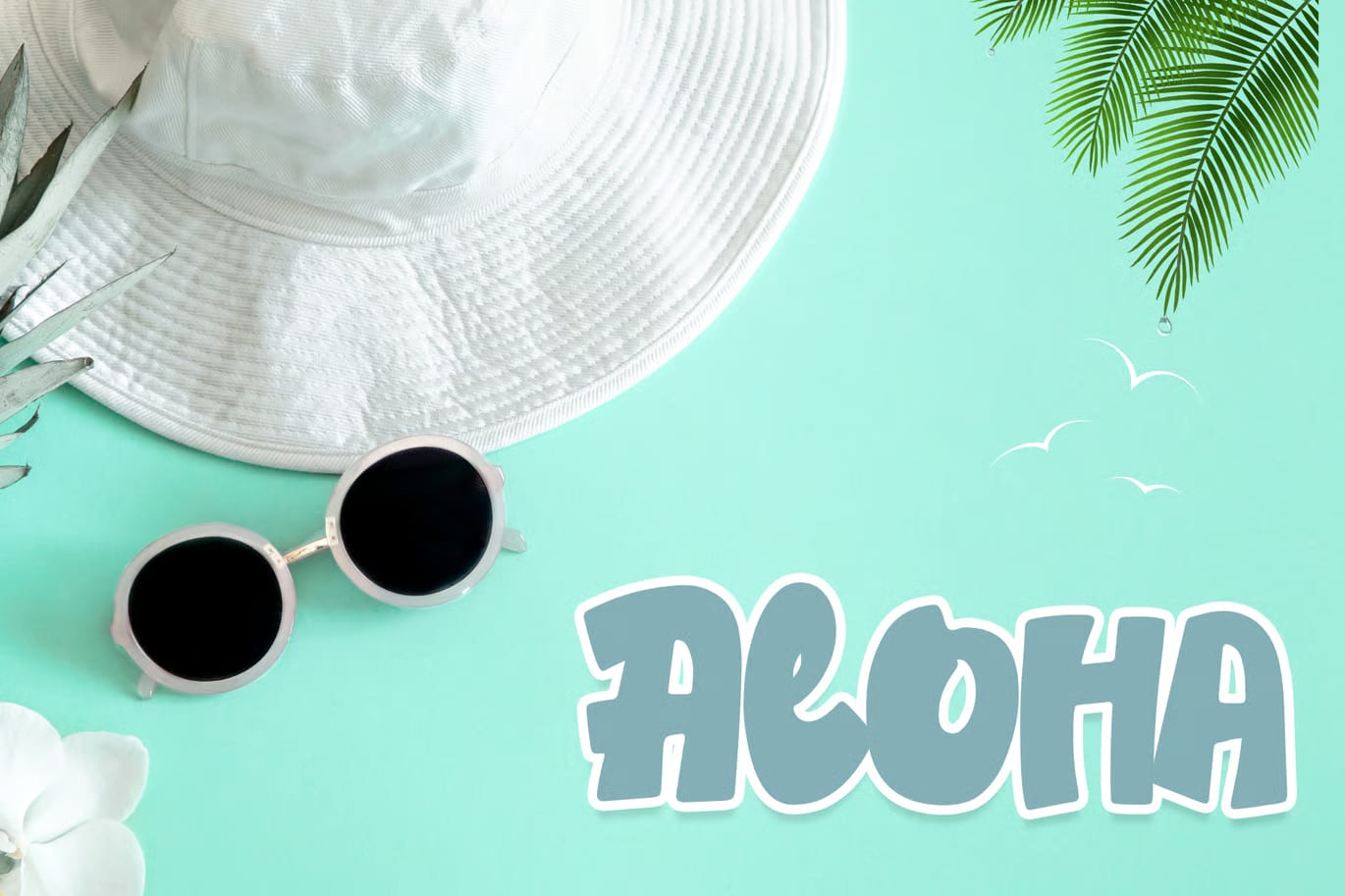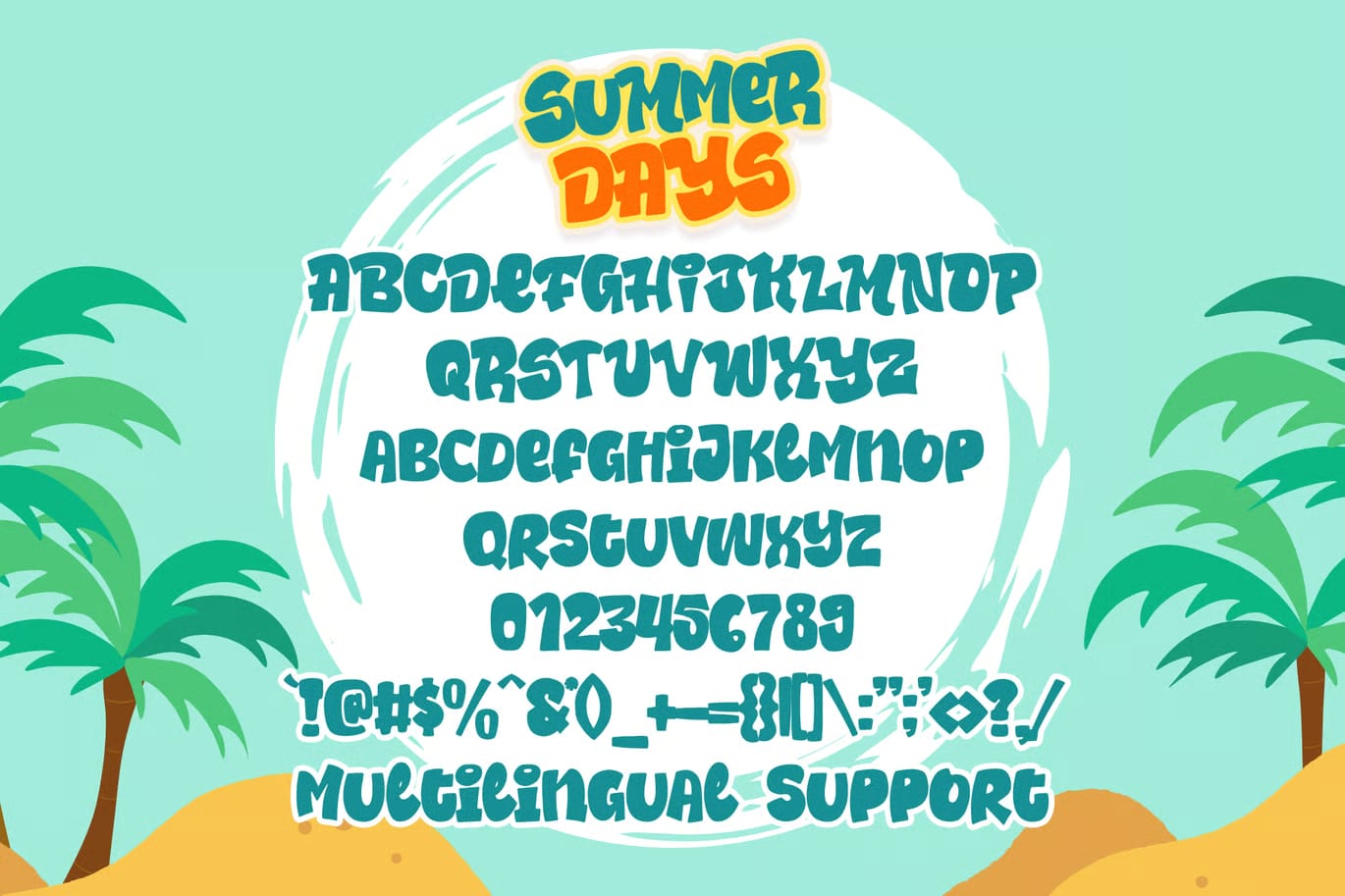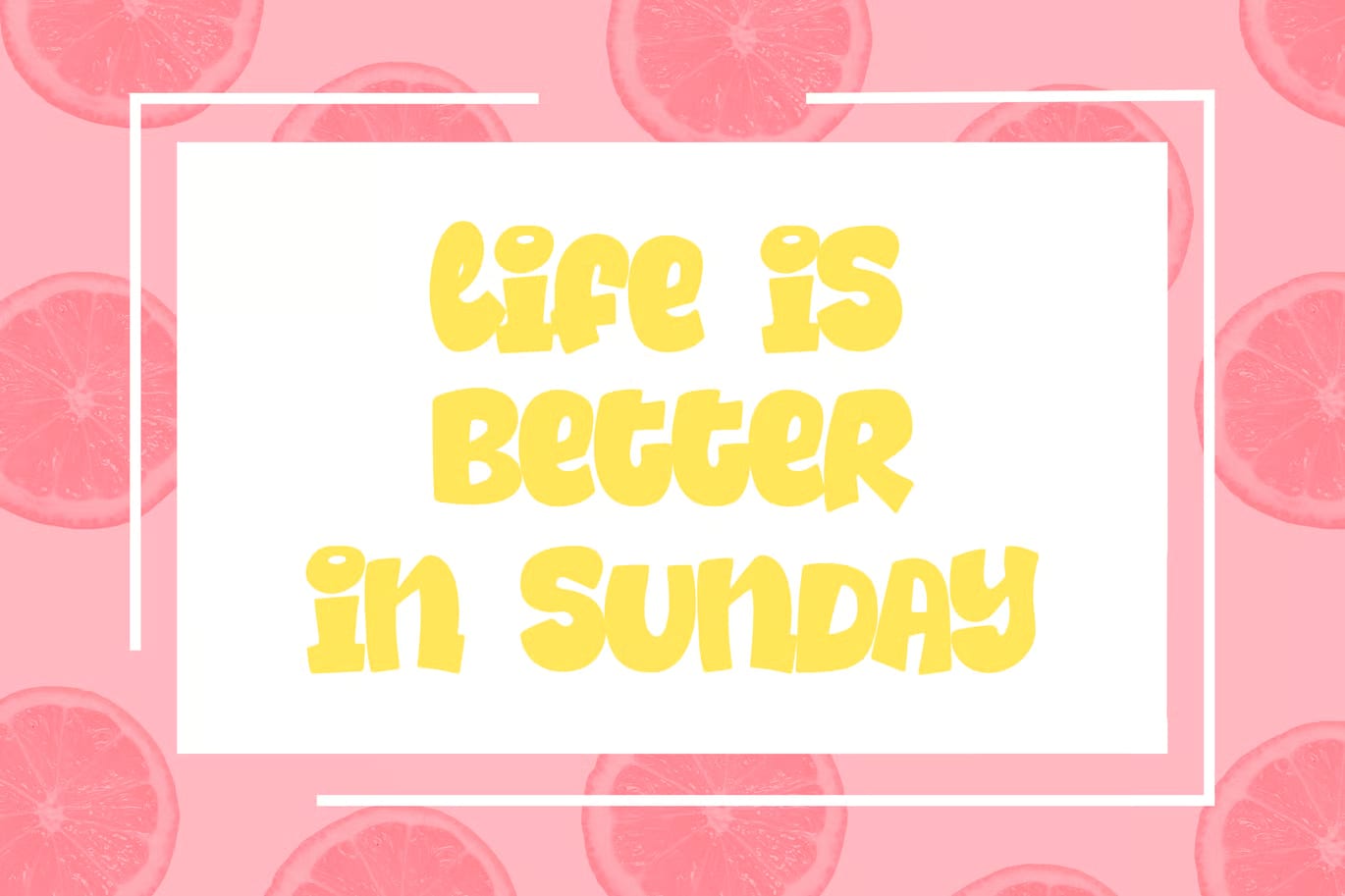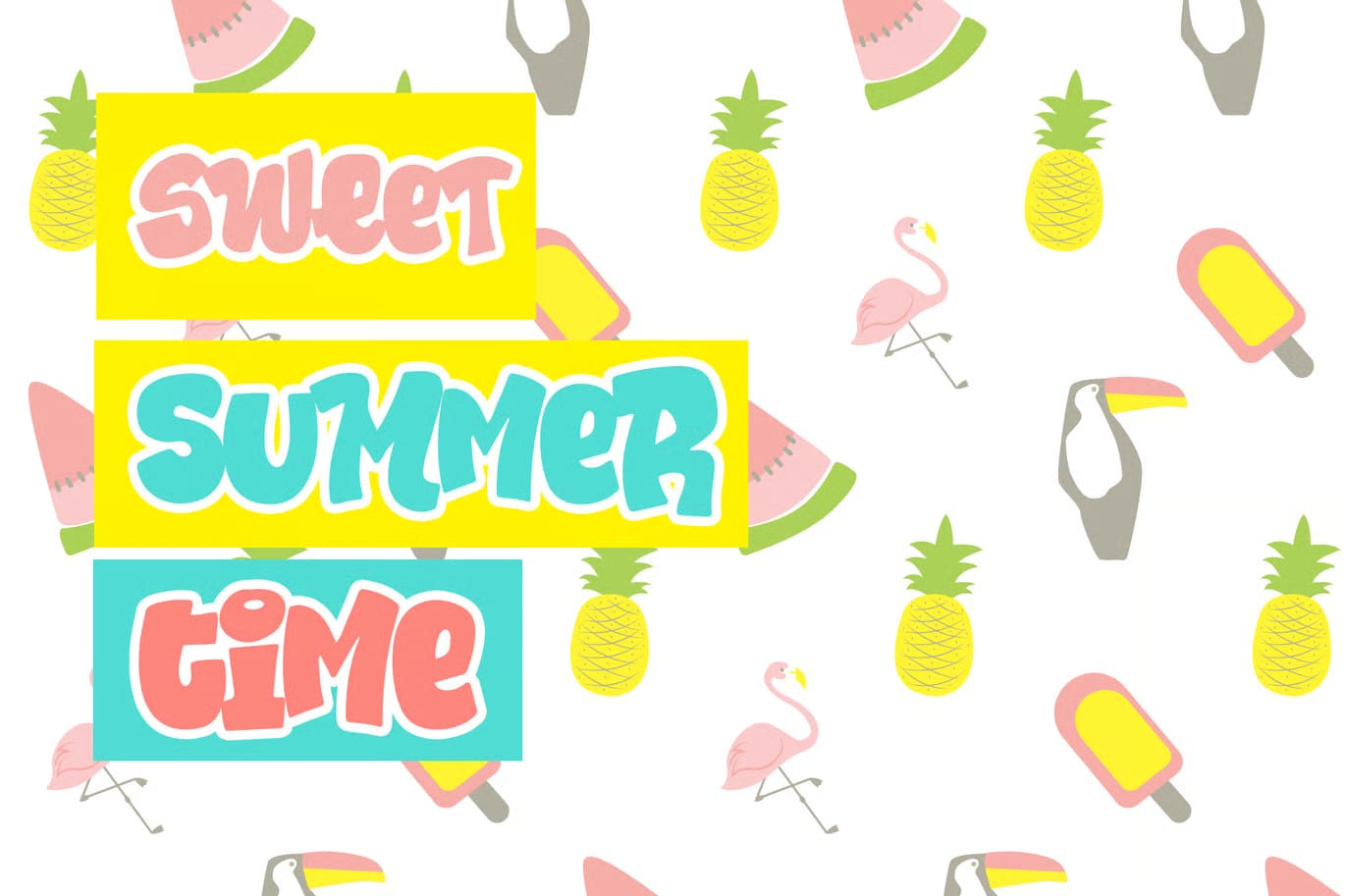
This font brings a bright, playful feel to your designs, with letterforms that give off the easygoing mood of sunny days and warm weather. It has a cheerful look that works well when you want your text to feel friendly, relaxed, and full of energy.
It’s a good choice for a wide range of creative projects, from invitations and posters to branding and social media graphics. The style fits especially well in designs that need a touch of fun or a more lighthearted personality, without feeling overly decorative.
The font also includes web font formats, making it suitable for use in online projects as well as print work. With its normal spacing and flexibility across different sizes, it can be used in titles, short phrases, or other text where you want the type itself to help set the tone.